Masqualero & Trade Gothic Next Font Pairing
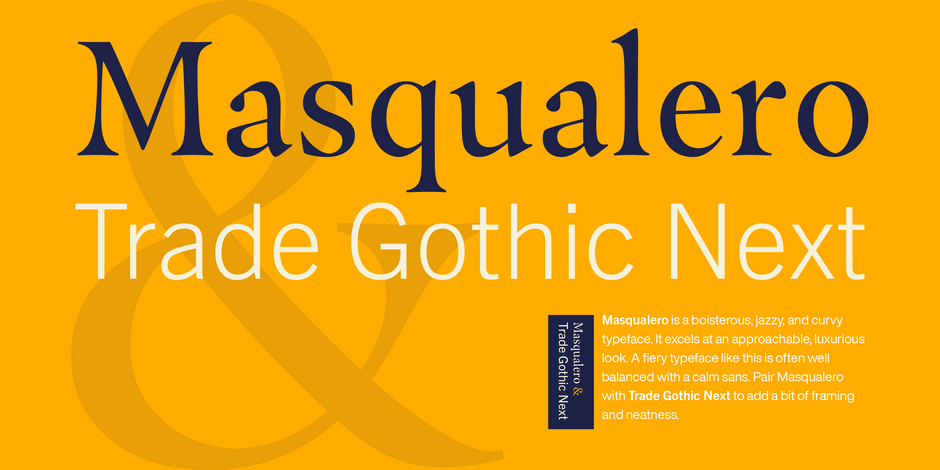
Framing Modern Art
Trade Gothic Next is the revised and expanded Trade Gothic family. Many details were improved, such as the terminals and stroke endings, symbols, and the spacing and kerning. Moreover, there are newly added compressed widths and heavy weights perfect for setting even more powerful headlines. Trade Gothic Next brings more features and better quality for today’s demanding typographers.
The Masqualero family is a versatile solution for a deep and broad range of applications. In large sizes, the heavier designs are dark and handsome, while the lighter weights are charming and friendly in text copy. Thanks to its many variations and distinctive demeanor, both print and interactive designers will find that Masqualero expands their creative options, while setting the perfect tone to catch and hold readers’ attention.